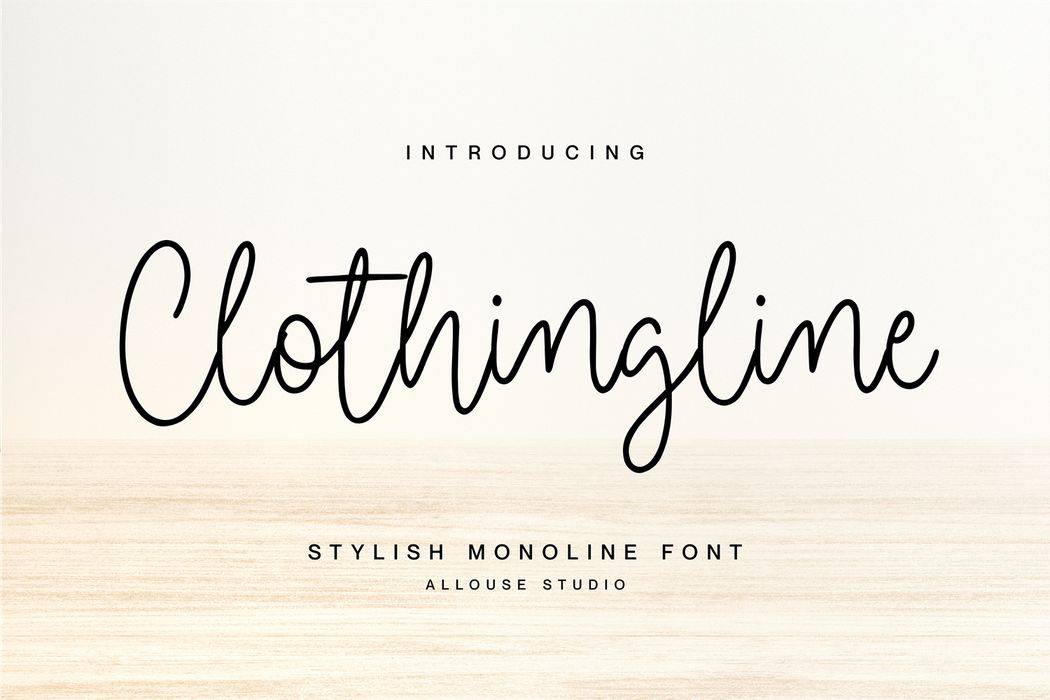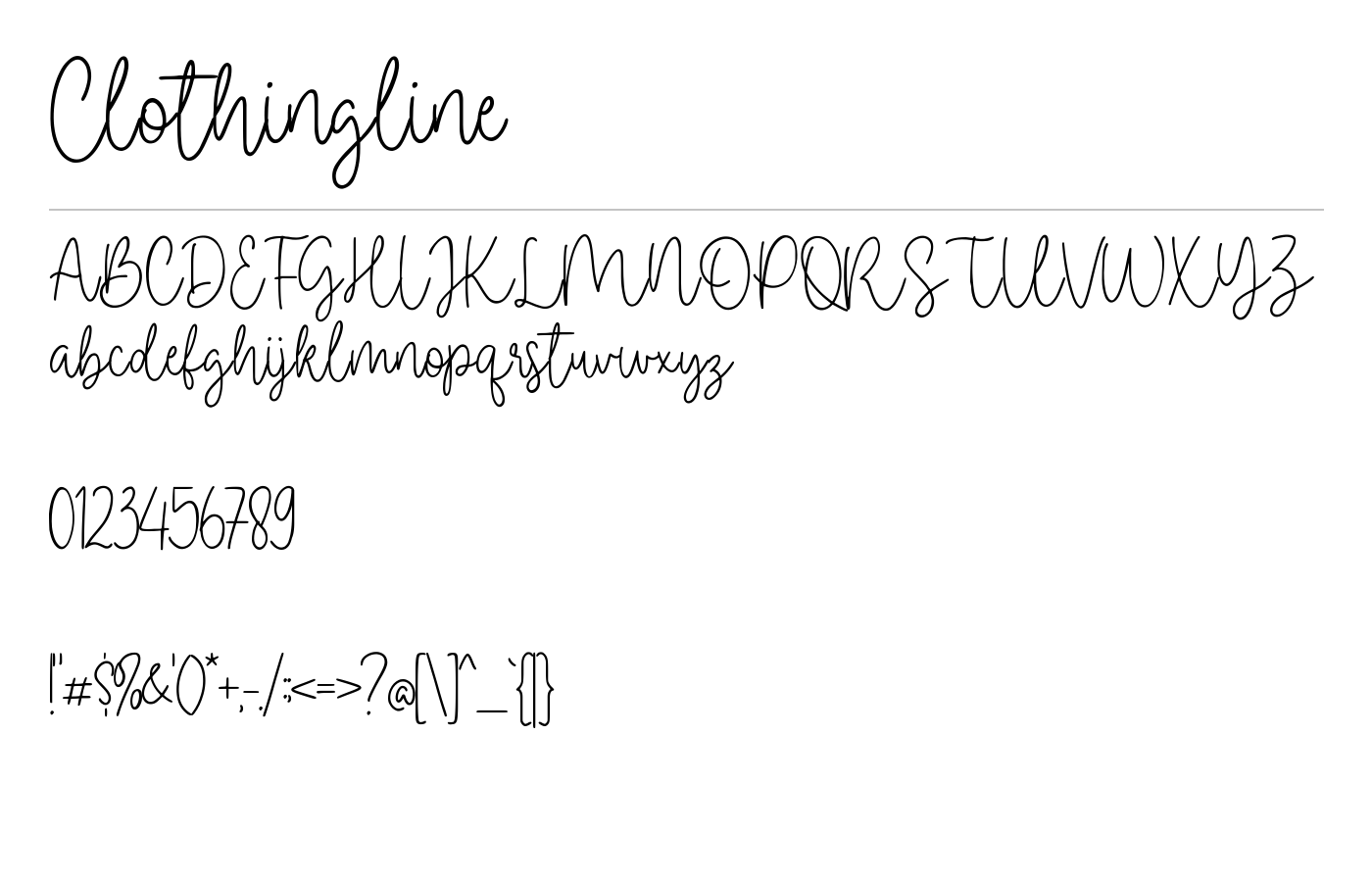
Clothingline is a delicate, handwritten script font with tall, slender letterforms and a light weight that gives it an airy, elegant feel. Its smooth, flowing strokes and casual yet refined style make it perfect for creative projects, branding, and invitations where a personal, stylish touch is desired. This font shines in designs that seek a modern, friendly, and approachable look with a hint of sophistication.
Clothingline Font
About Clothingline Font